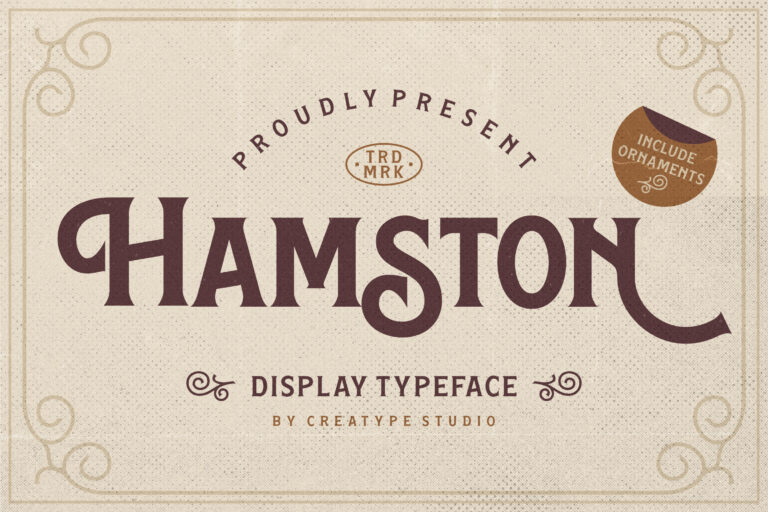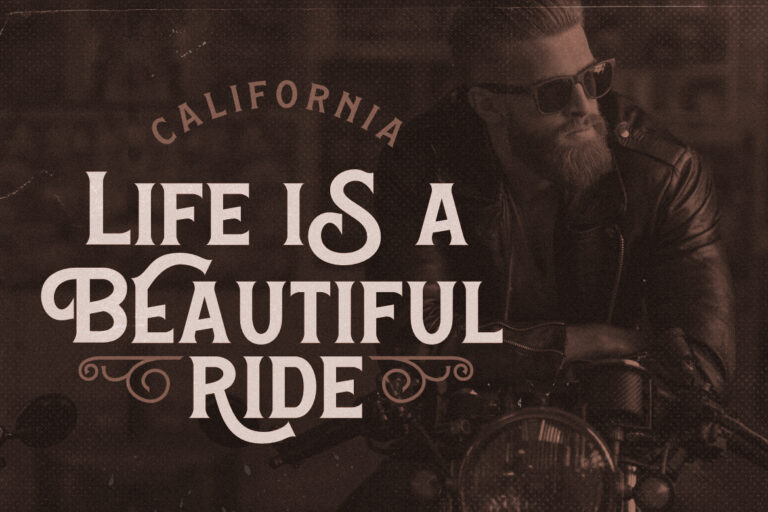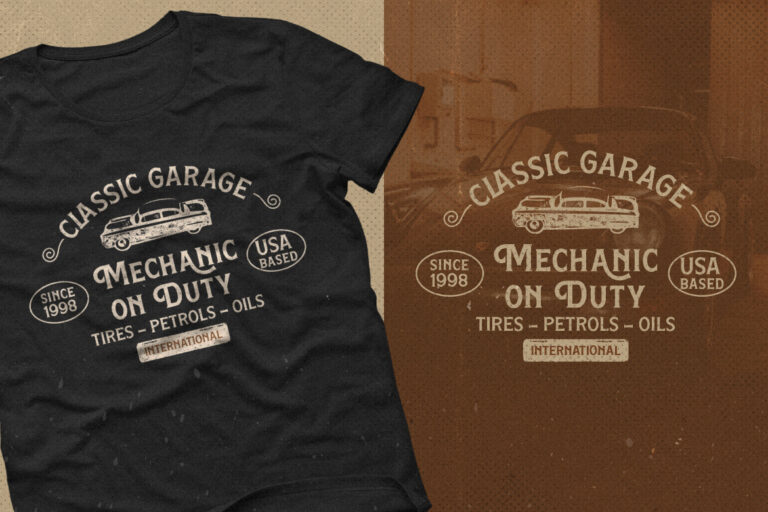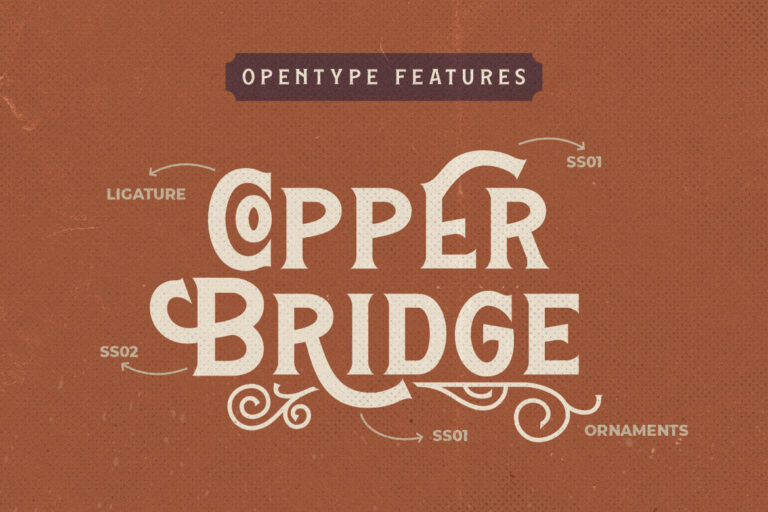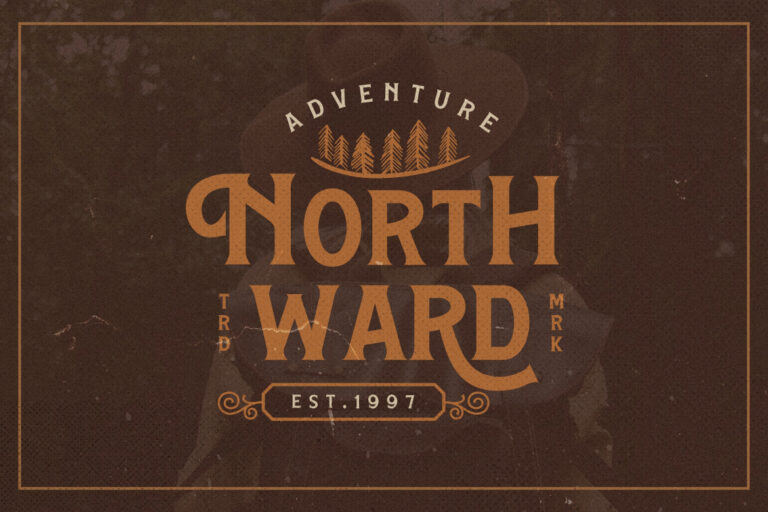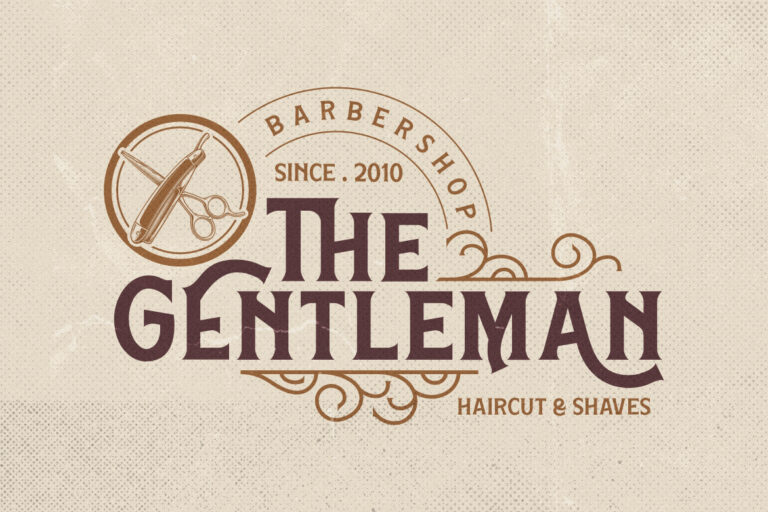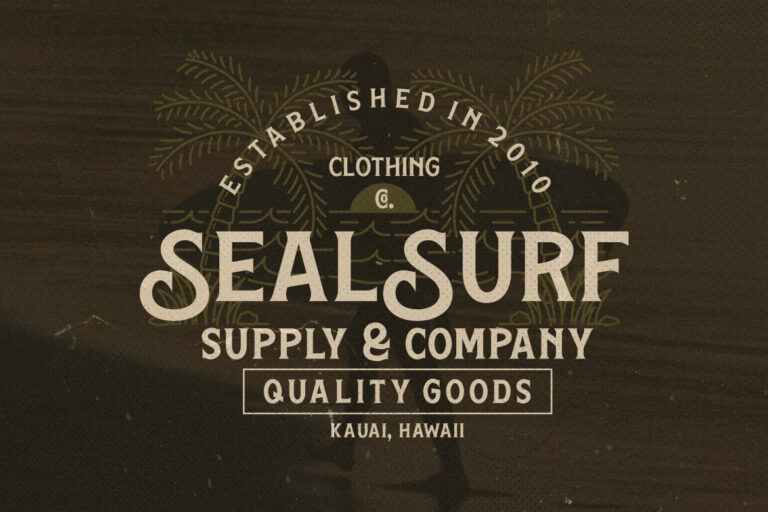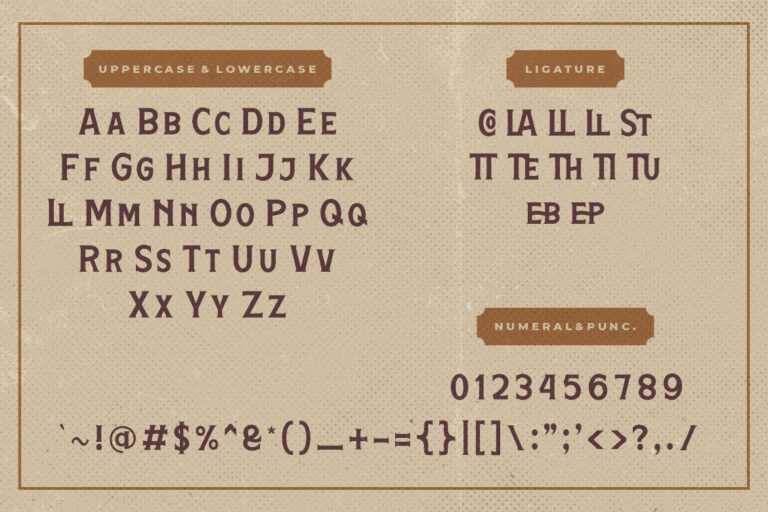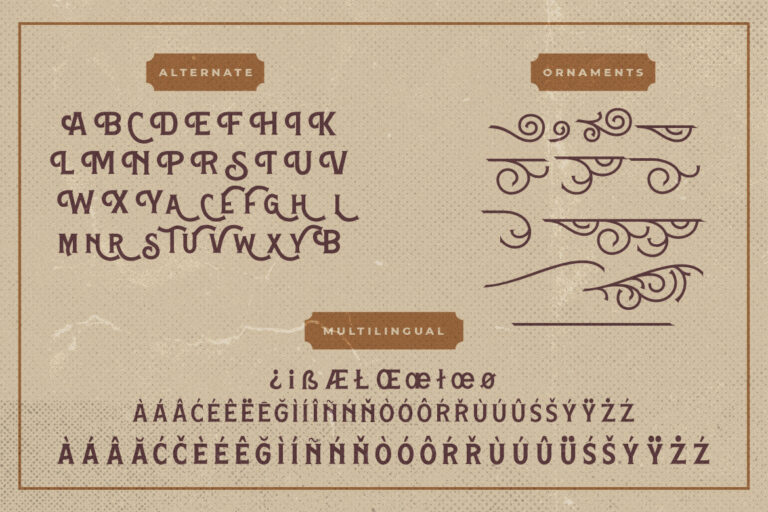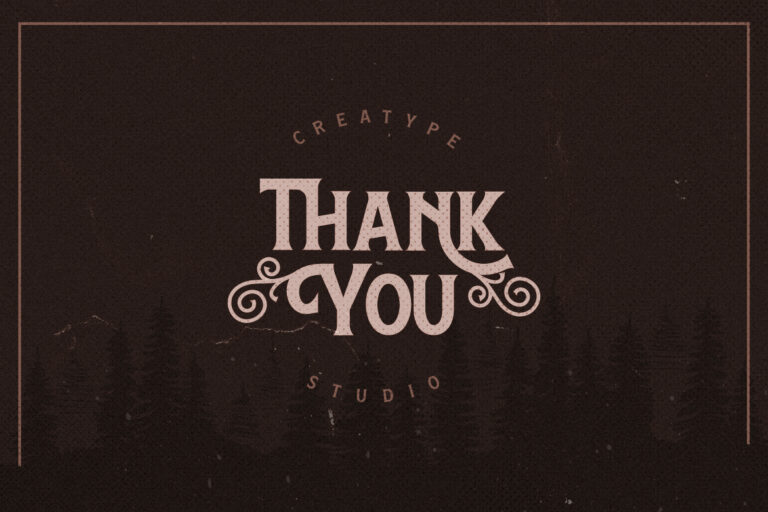
Hamston Display Vintage
Hamston A vintage display typeface with the touch of retro feel yet still looks luxury in a modern design concept. This typeface has unique looks and strong character with its ornament swashes. It will perfect for your creative project.
- Ligature, Alternate & Swashes